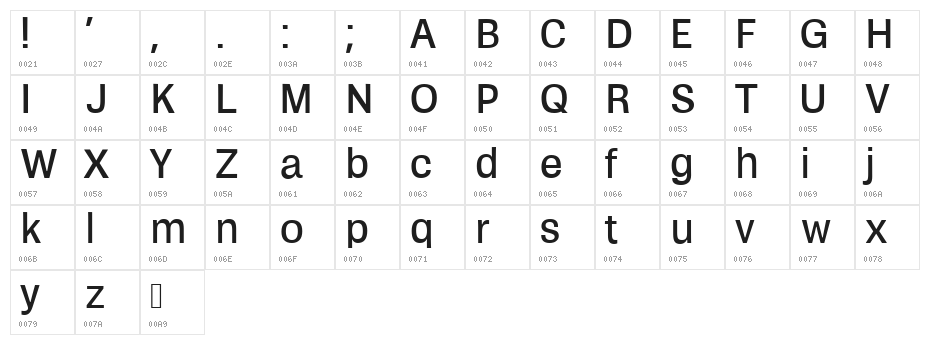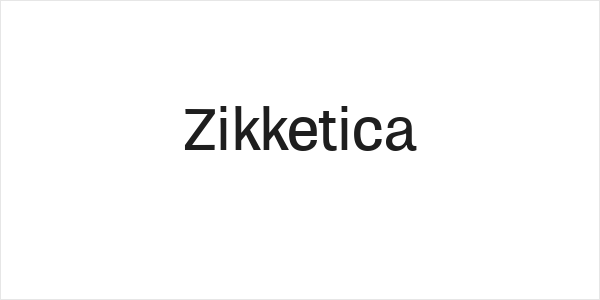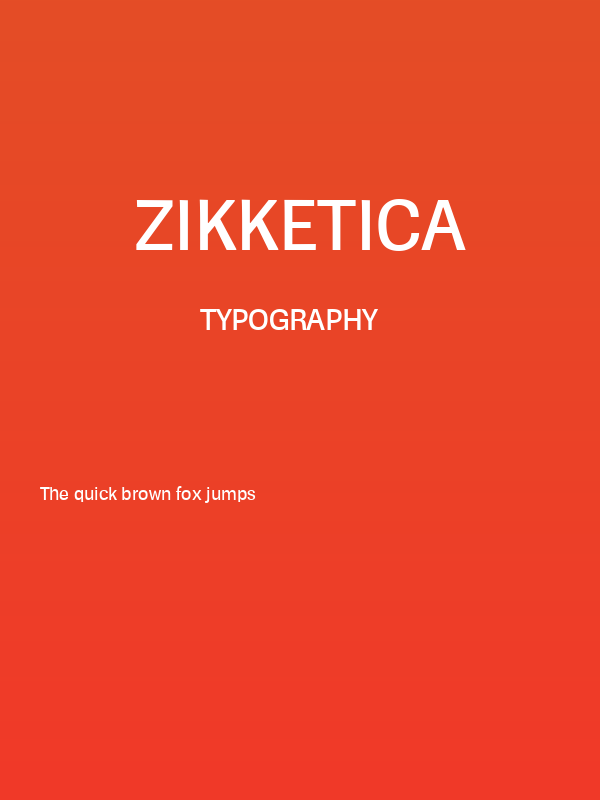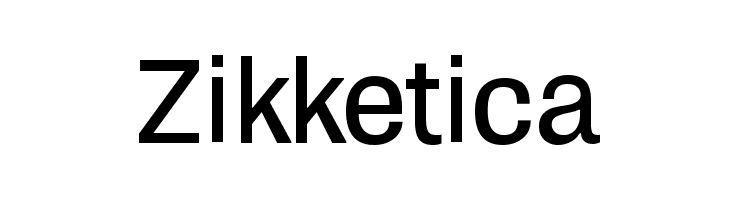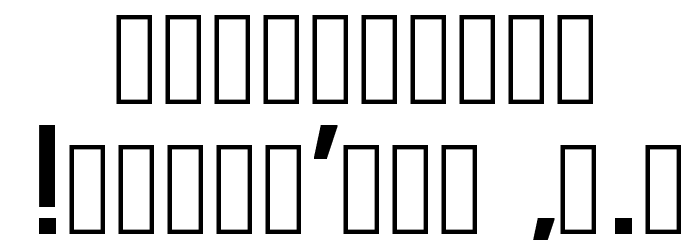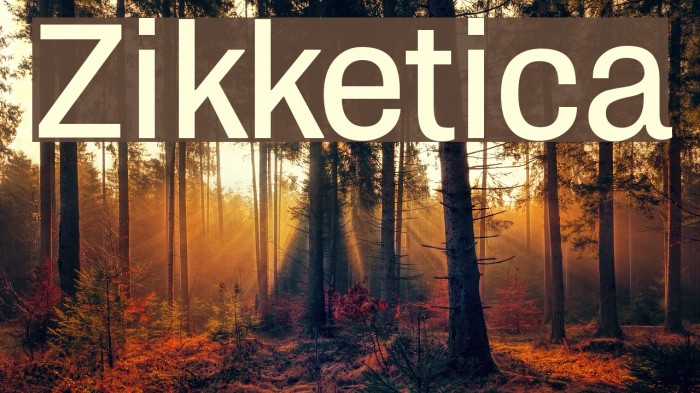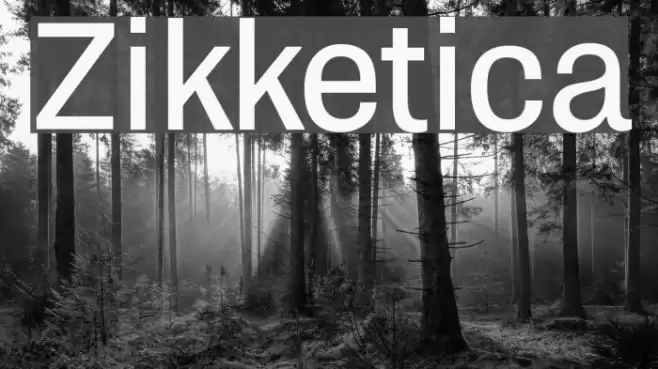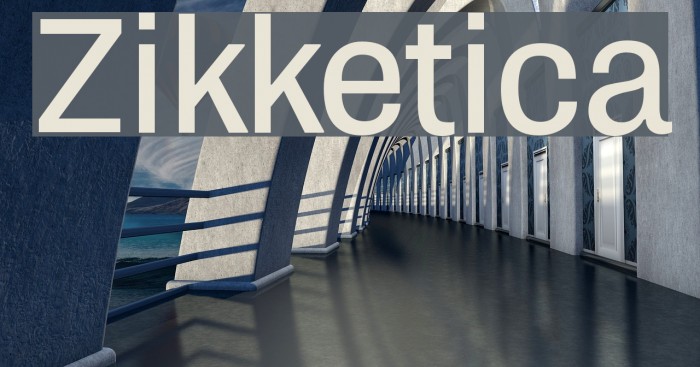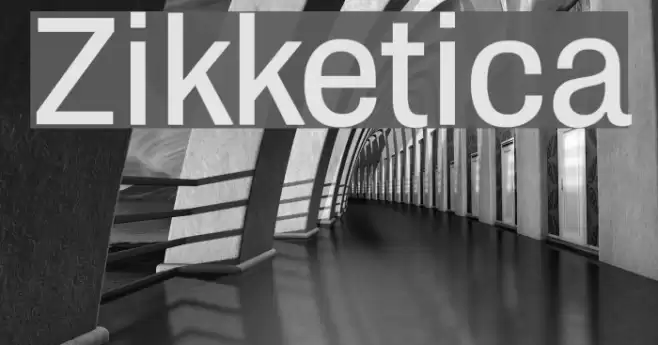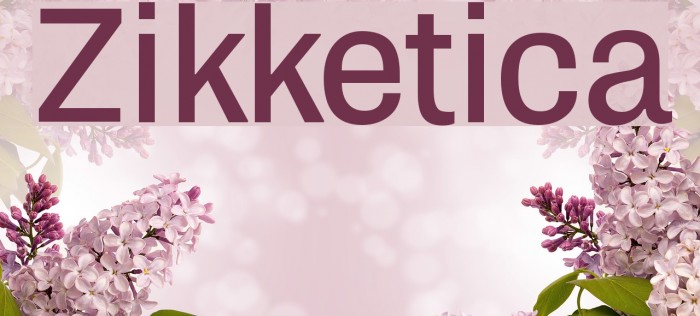
Zikketica Font
This font features a clean and modern sans-serif design, characterized by its uniform stroke width and minimalistic appearance. The uppercase letters are bold and assertive, while the lowercase letters maintain a consistent height, contributing to a balanced and harmonious look. The numerals are straightforward and align well with the overall style, ensuring readability and clarity. The special characters are designed to complement the alphabet, maintaining the font's sleek and professional aesthetic. This font is versatile, suitable for both digital and print media, and can be used effectively in various design contexts.
| Proposed Projects | Ideal for branding, web design, advertising, and editorial projects. |